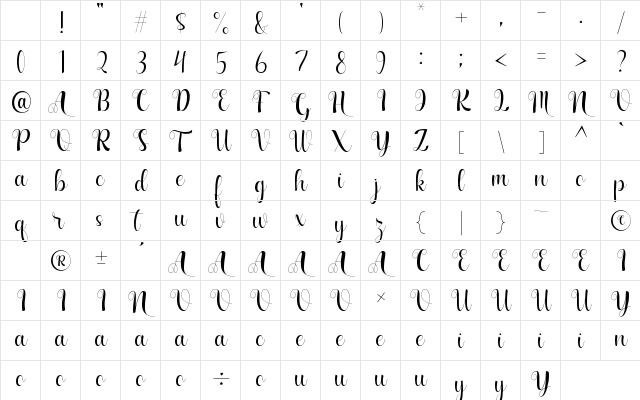
New Chapter Regular Free Font
New Chapter Regular
Foundry: Fadlilah Studio
Designer: Fina Fadlilah
Design Context for New Chapter
New Chapter is a composed and adaptable typeface that performs quietly and consistently across a wide range of design contexts.